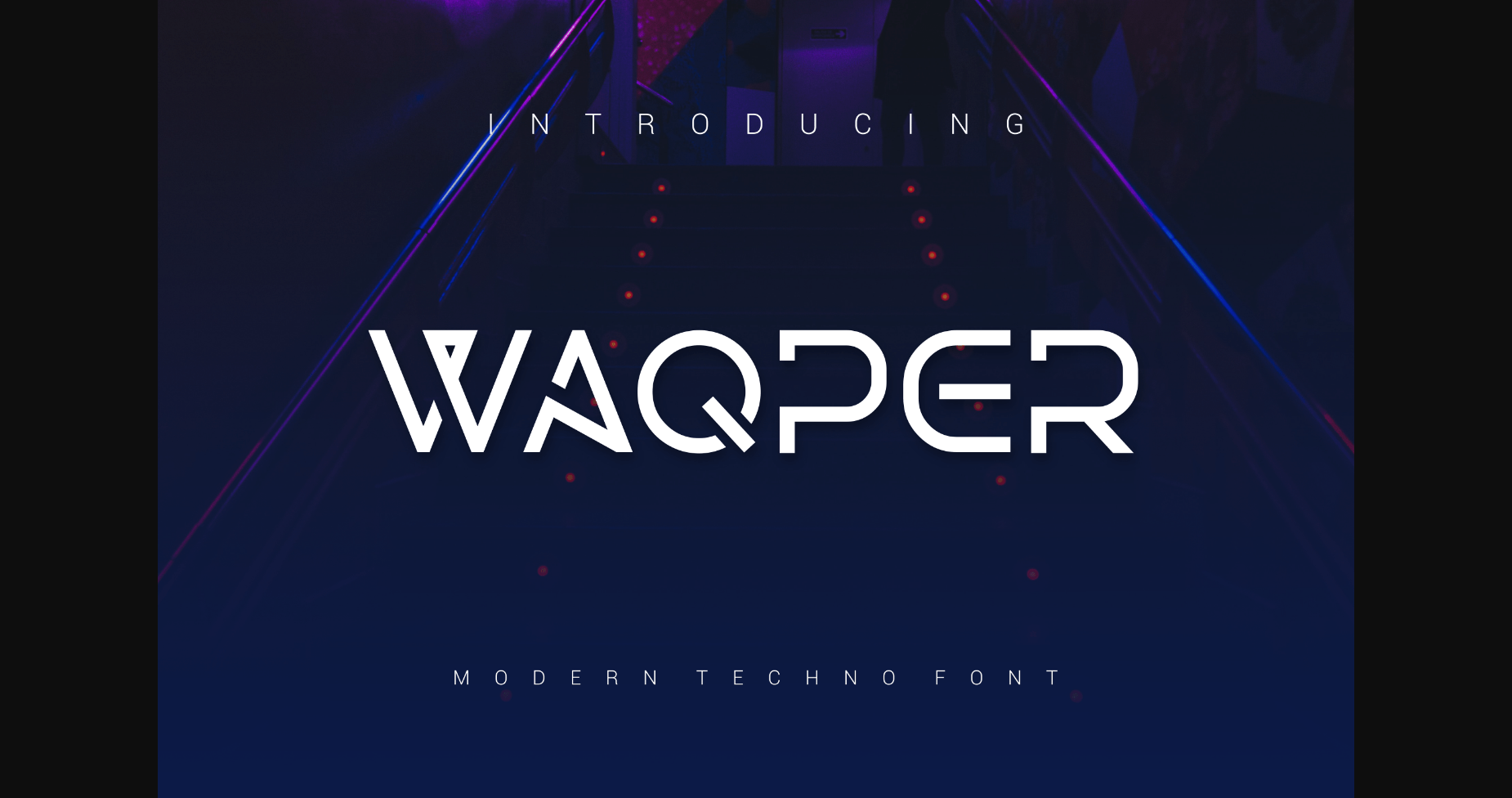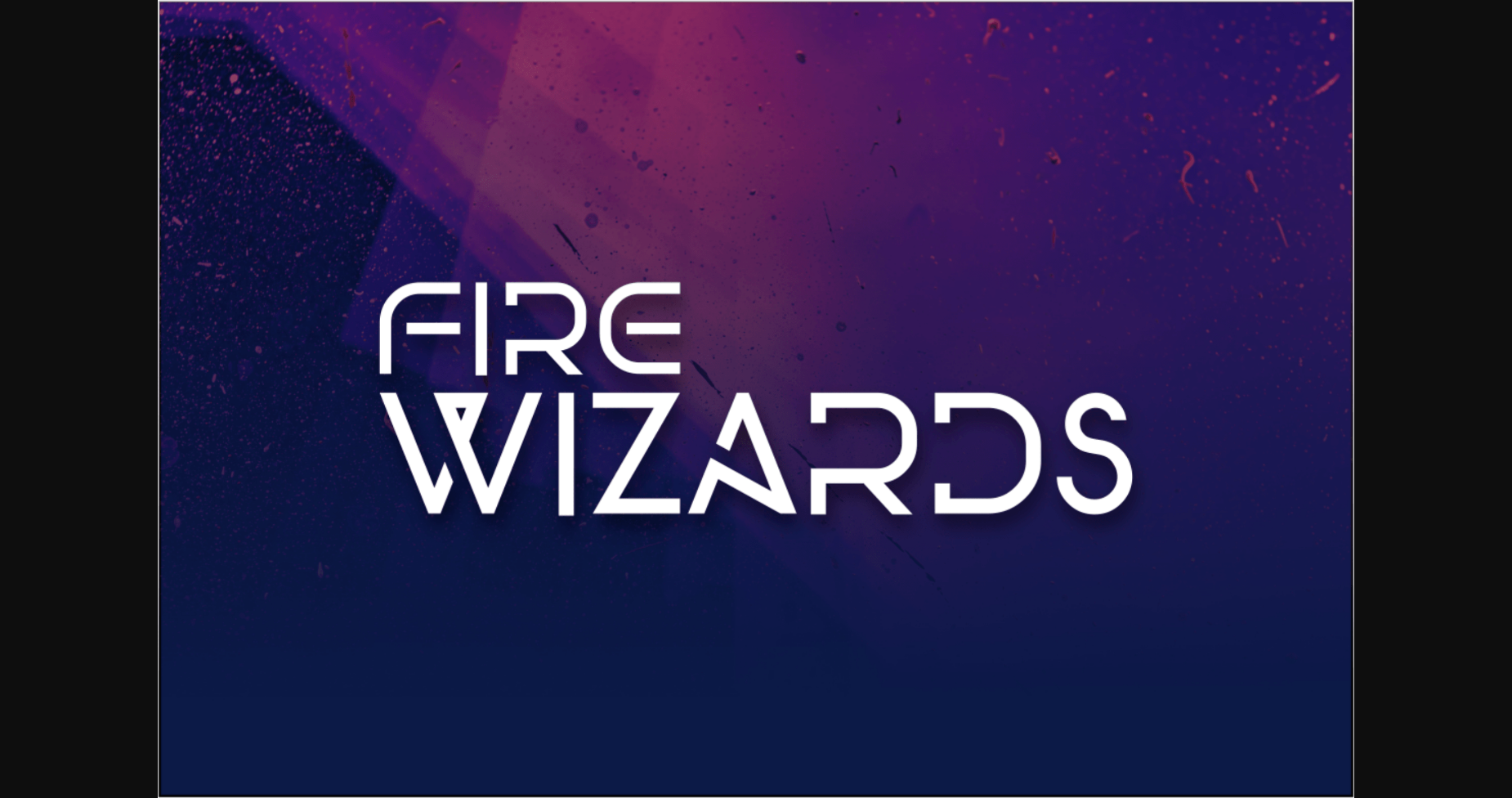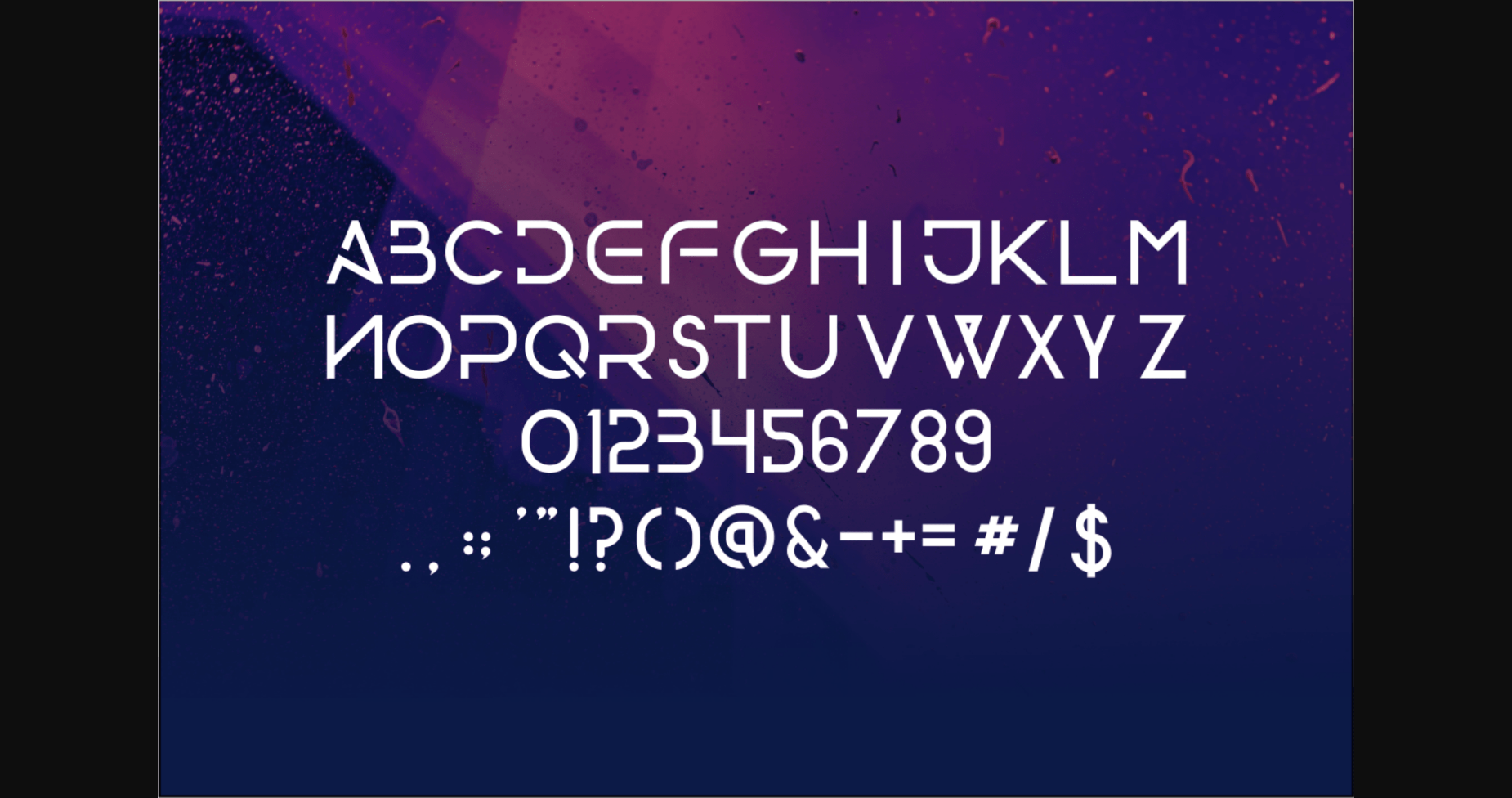
Waqper Font
About Waqper Font
Waqper – Modern Font is a bold and authentic display font. The font is suitable for any branding project like logo, t-shirt printing, e-sport, and many more. outstanding in a wide range of contexts.